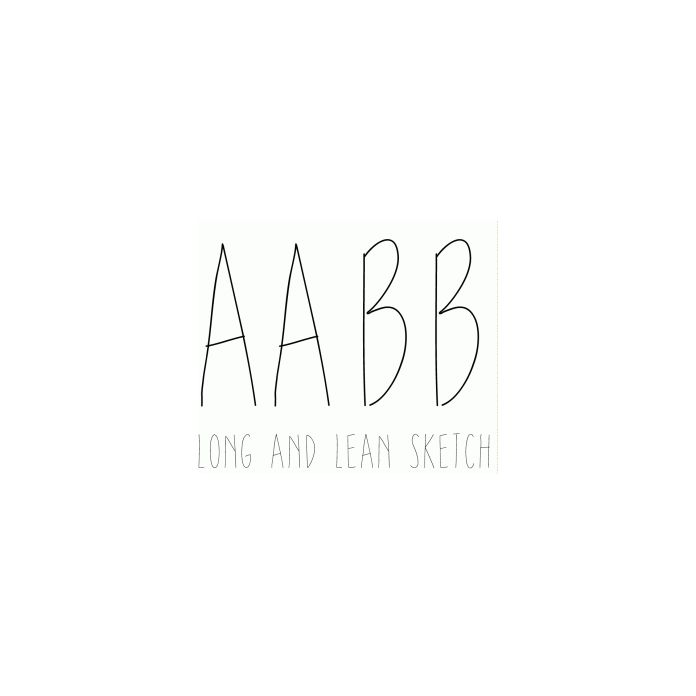
long and lean sketch font
This font is designed to be sketched and not cut out. It includes the alphabet, numbers, and basic punctuation. www.dresdencarrie.com